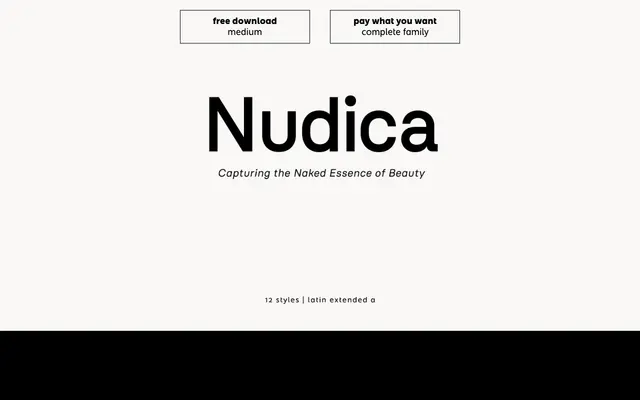
Nudica
atipo foundry · Raul Garcia del Pomar, Ismael Gonzalez (atipo) · 2020
Nudica specimen from atipo foundry
A stripped back neo-grotesque from atipo in six weights with italics, paired with Nudica Mono for code and data work.
A neo-grotesque sans by atipo, drawn as a calm workhorse for text, interface and identity. Twelve styles run across six weights from Thin to Bold with matching italics, and the family carries tabular figures, fractions, superiors and ordinals. Pairs with Nudica Mono so editorial systems and product UI can move between prose, data and code without breaking voice. Atipo offer Medium as a free download with the rest of the family on a pay what you want basis.
Atipo position Nudica as a stripped back neo-grotesque, paired with Nudica Mono, drawn to capture what they call the naked essence of beauty in everyday text and interface use.